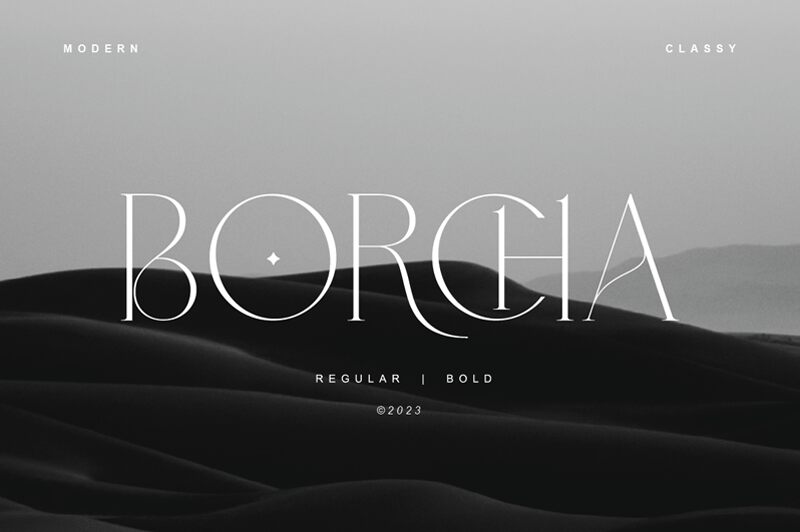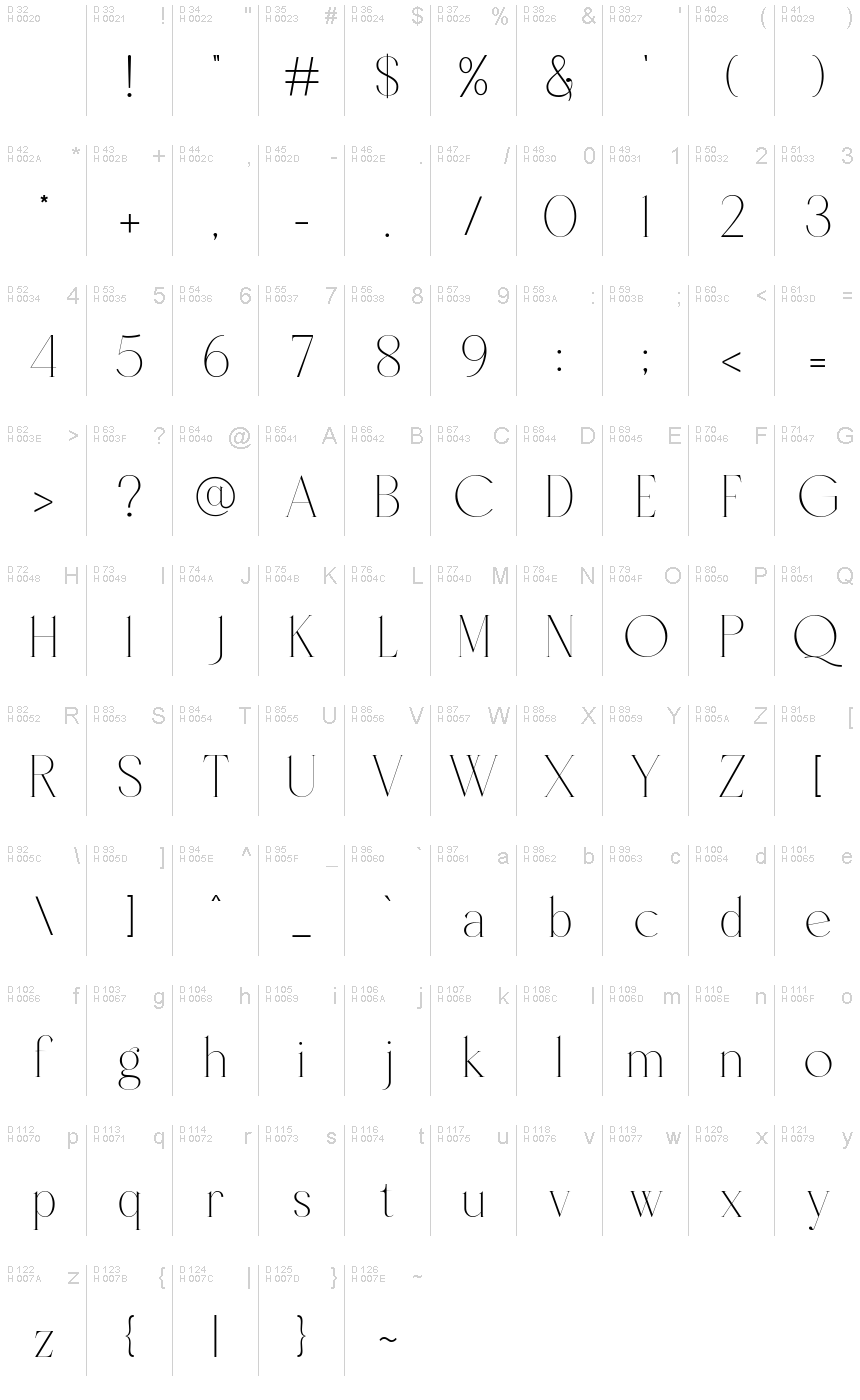
BORCHA
Borcha, a captivating serif font crafted by Rmdndsign, exudes a refined and elegant aesthetic. With its delicate, light strokes and graceful curves, this typeface emanates a sense of sophistication and timelessness. The clean, well-balanced letterforms create a harmonious and visually pleasing composition, making Borcha a versatile choice for a wide range of design applications.
Borcha's versatility shines through its ability to seamlessly integrate into various design contexts. From high-end editorial layouts and luxury brand identities to editorial typography and sophisticated web designs, this font's refined personality lends itself beautifully to projects that demand a touch of elegance and refinement. Whether you're crafting a captivating book cover, curating a visually striking magazine, or designing a sleek and modern website, Borcha's light, elegant presence will elevate your design.